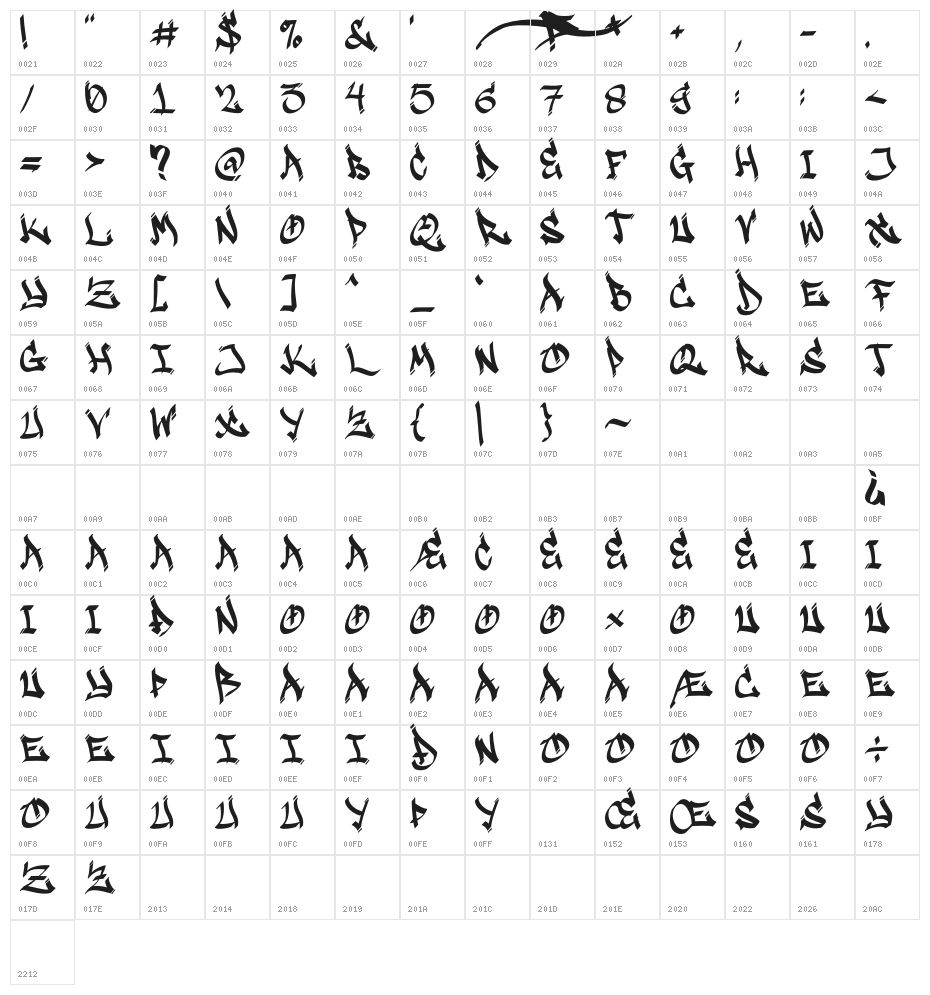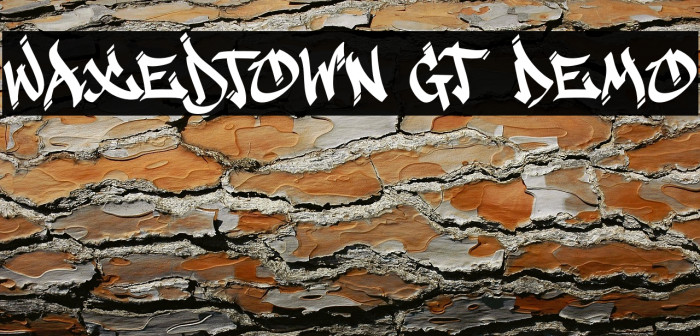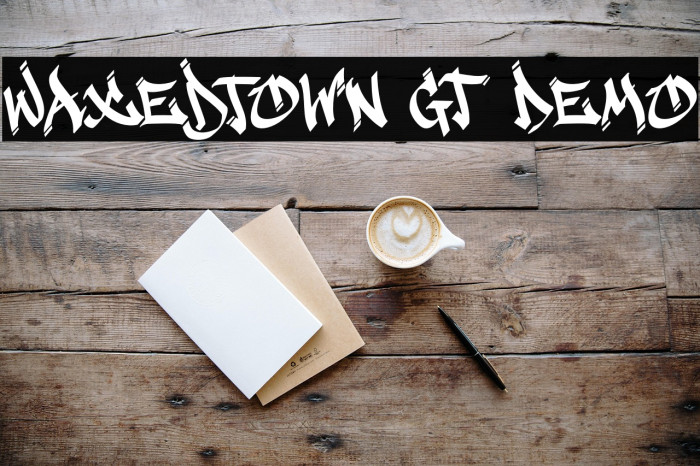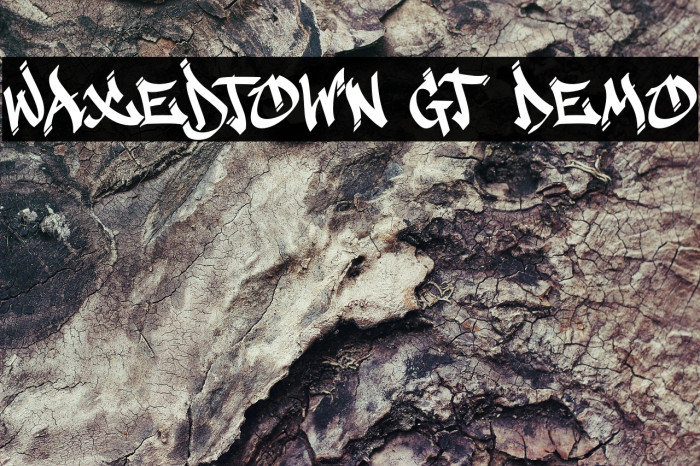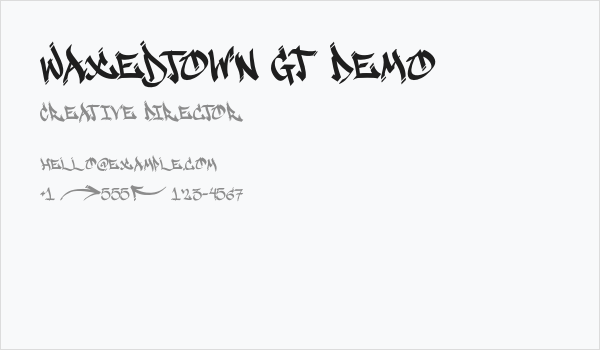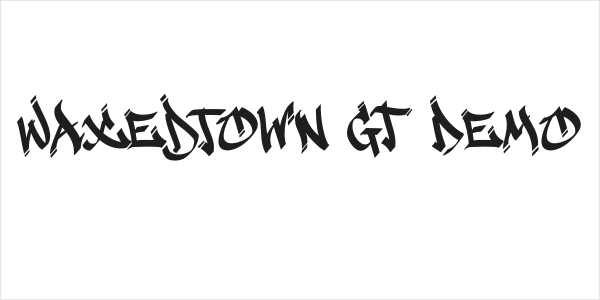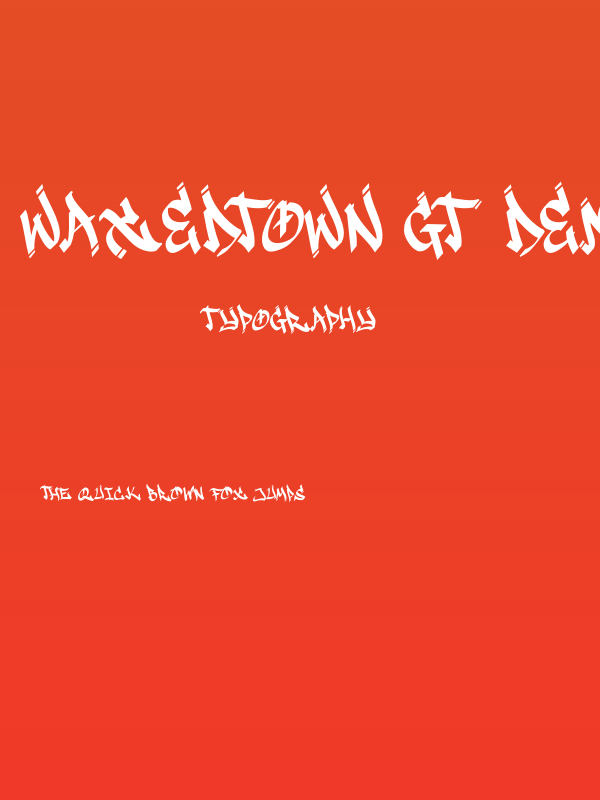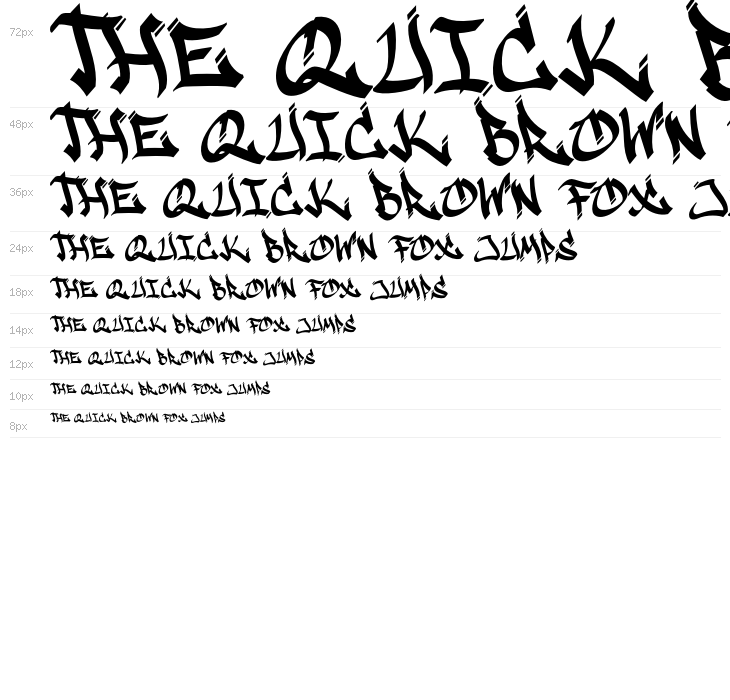
Waxedtown GT Demo Font
Waxedtown GT Demo Description
This font exhibits a bold, dynamic style with sharp, angular strokes that give it a graffiti-like appearance. The characters are highly stylized, featuring exaggerated curves and pointed edges that create a sense of movement and energy. The uppercase and lowercase letters maintain a consistent design, while the numbers and special characters complement the overall aesthetic. The font's unique style makes it stand out, with a strong visual impact that is both modern and edgy.
Overall StyleModern, Edgy
Use CaseLogos, Posters, Headlines
Proposed ProjectsIdeal for street art designs, urban-themed posters, music album covers, and edgy branding projects.